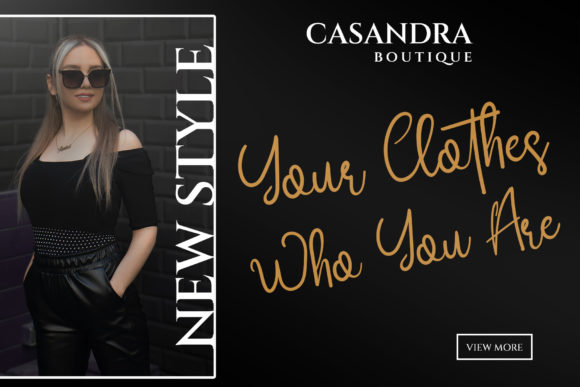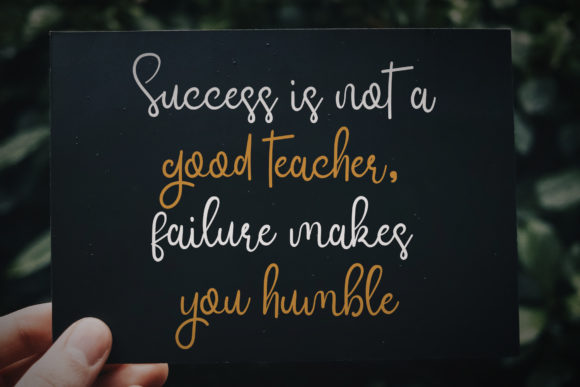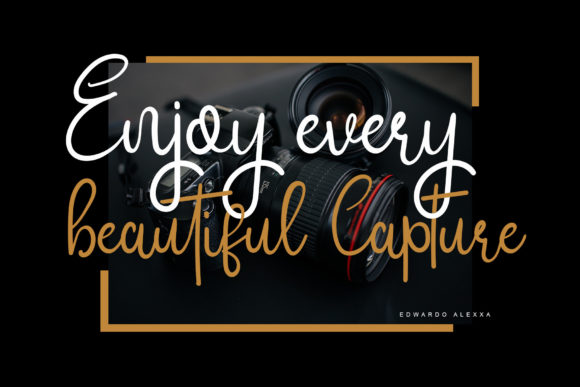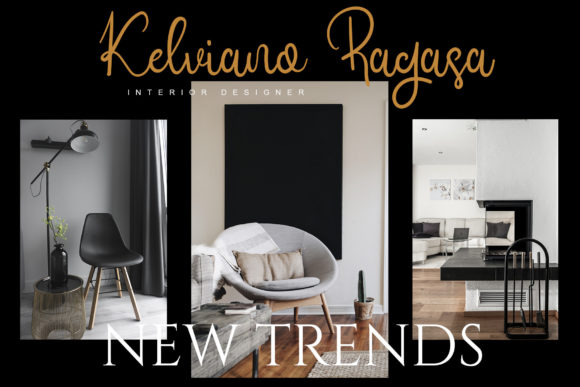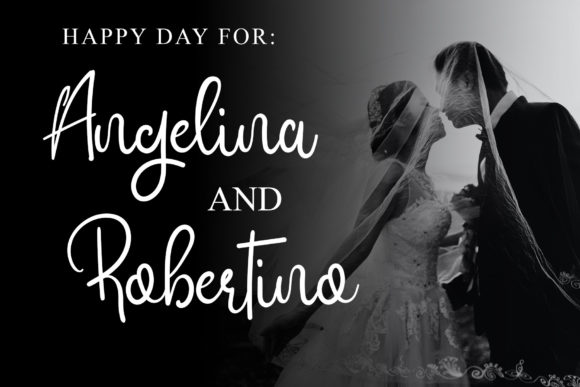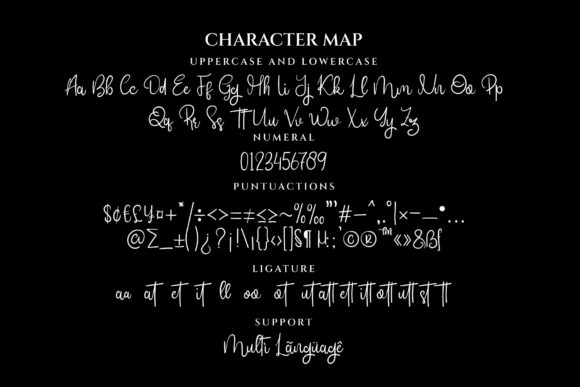
Introduction to Rangkuti Font
Rangkuti is a thin, cursive and fashionable script font.
It can be used for various purposes such as logos, wedding invitations, headings, t-shirts, letterhead, signage, labels, news, posters, badges and so much more .
Key Features of Rangkuti Font